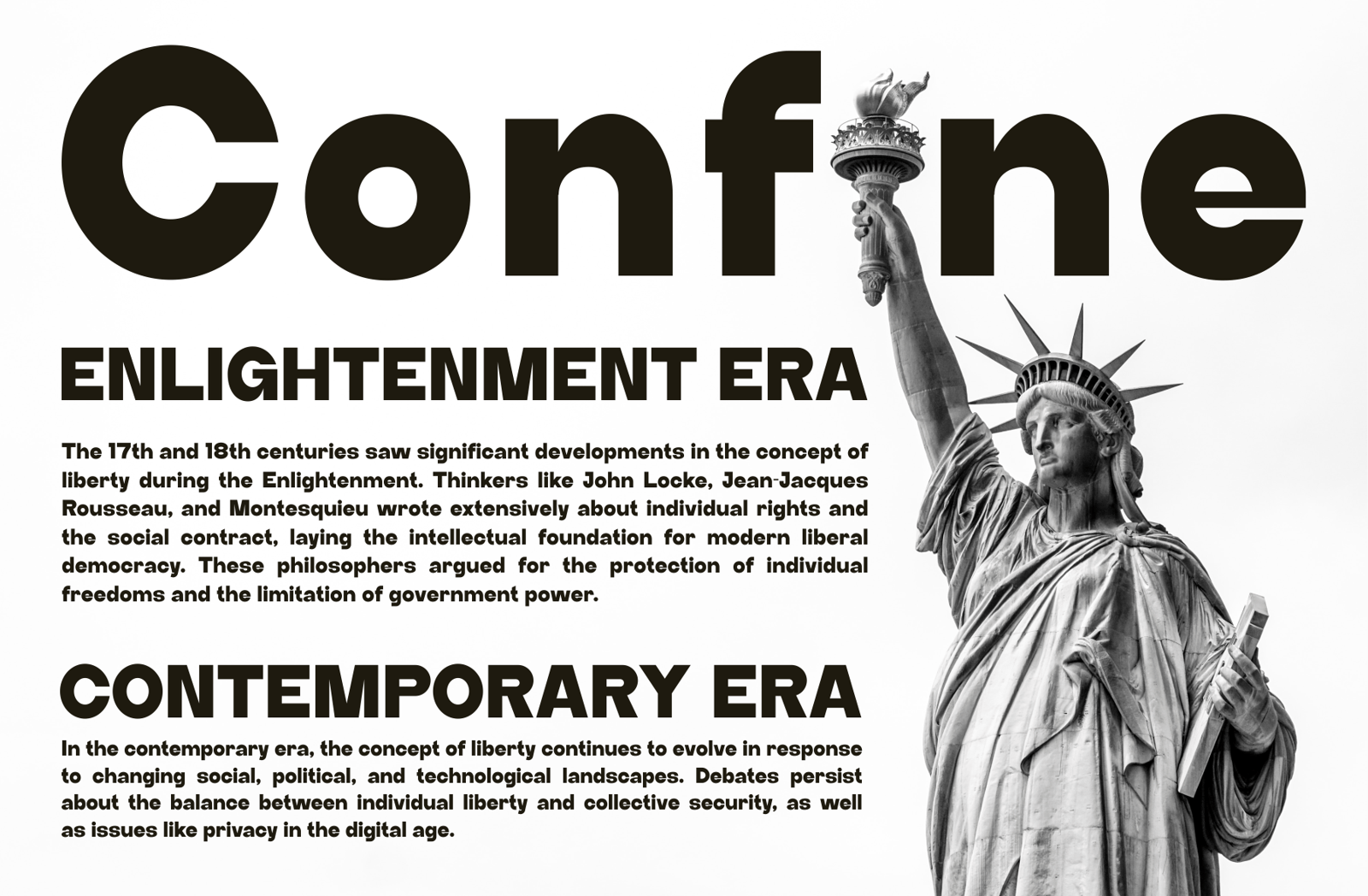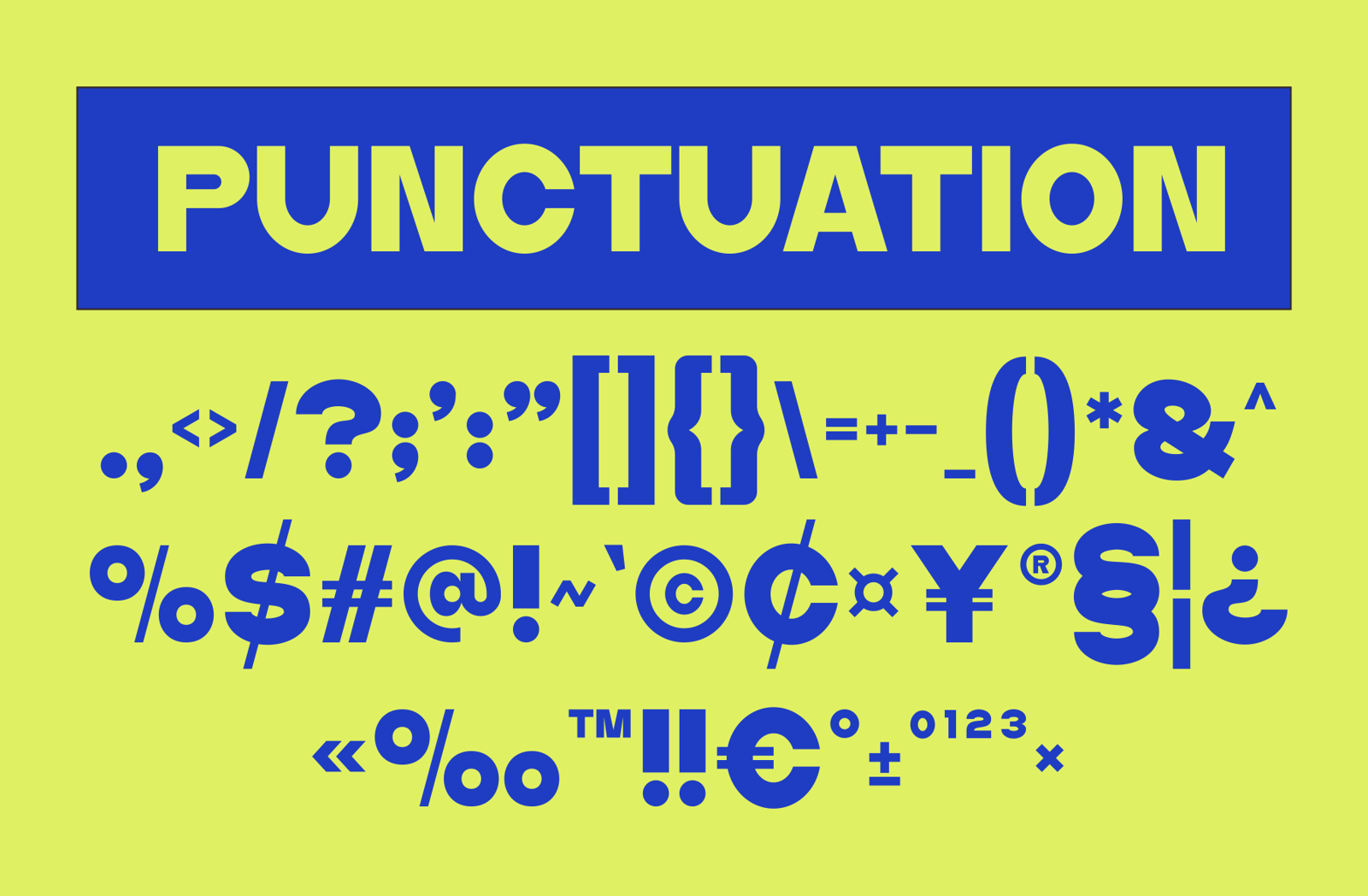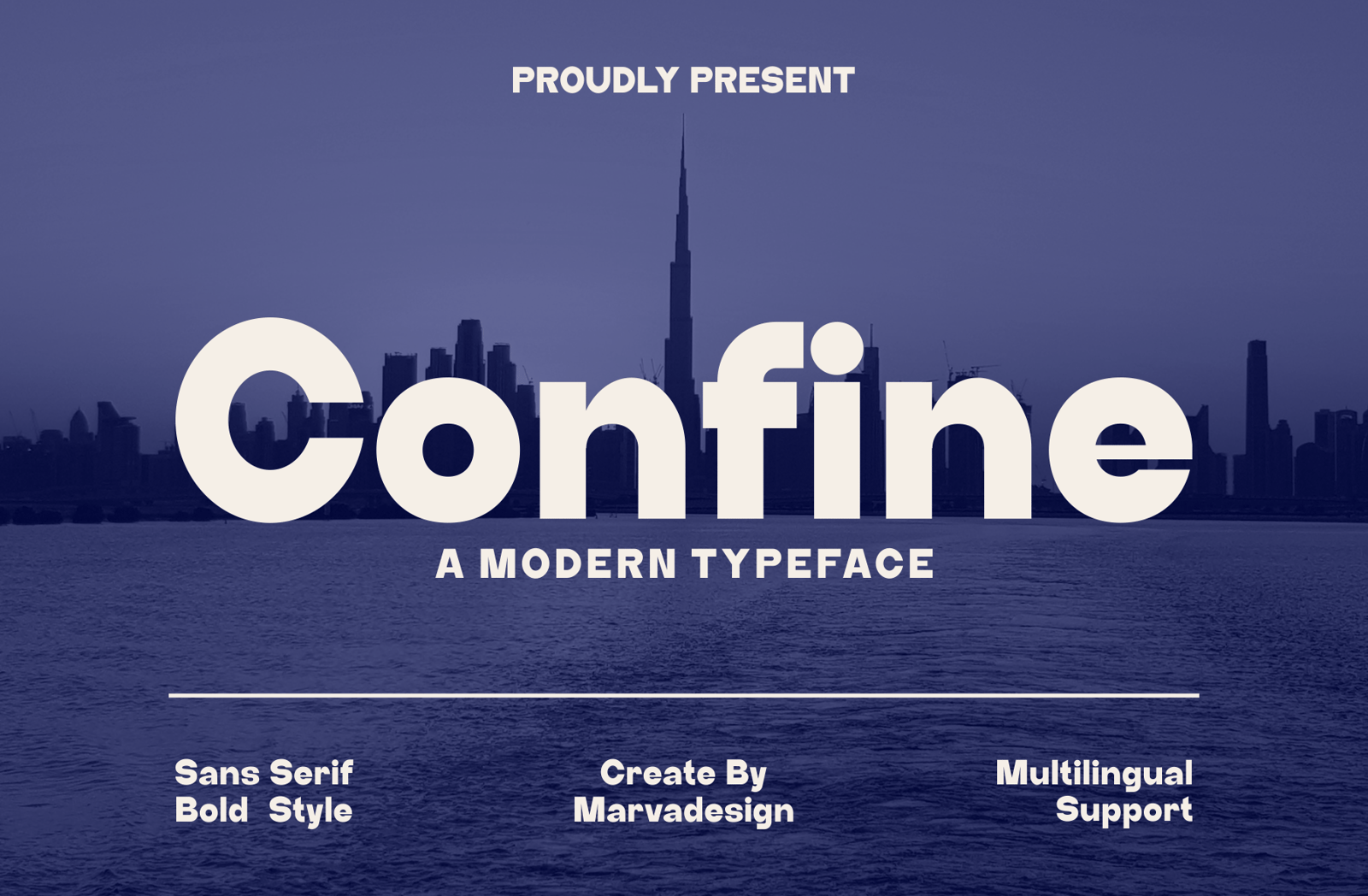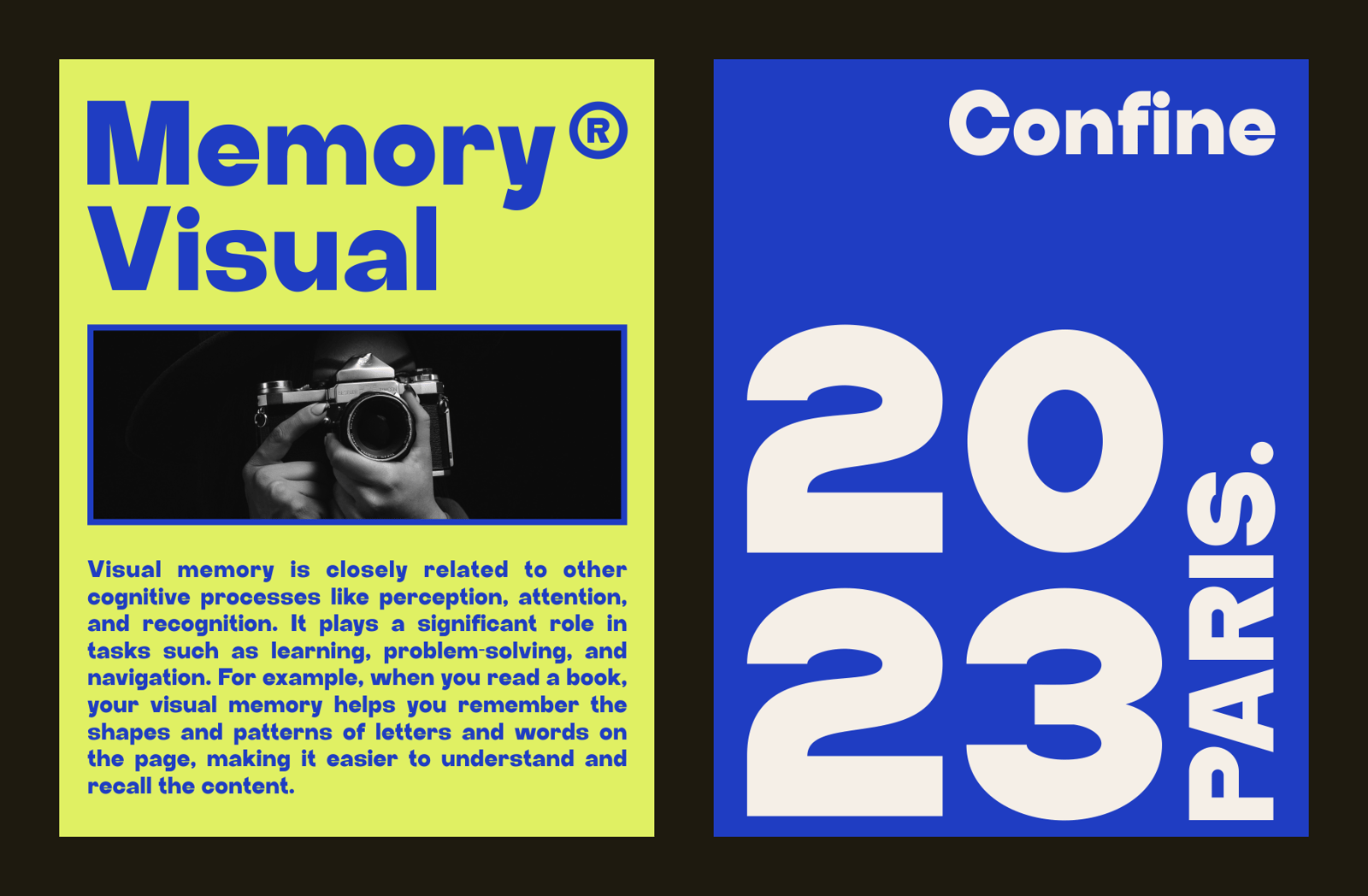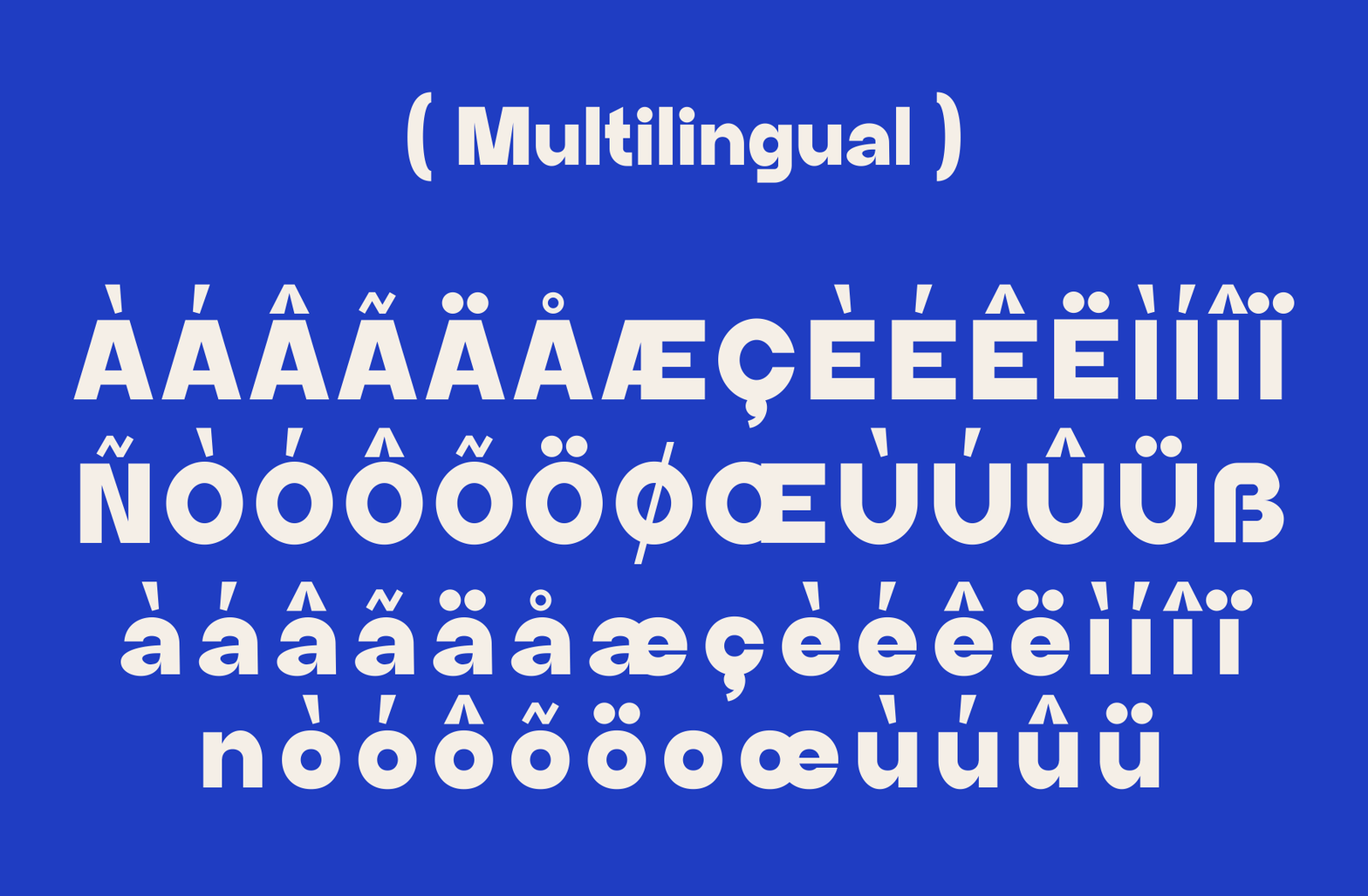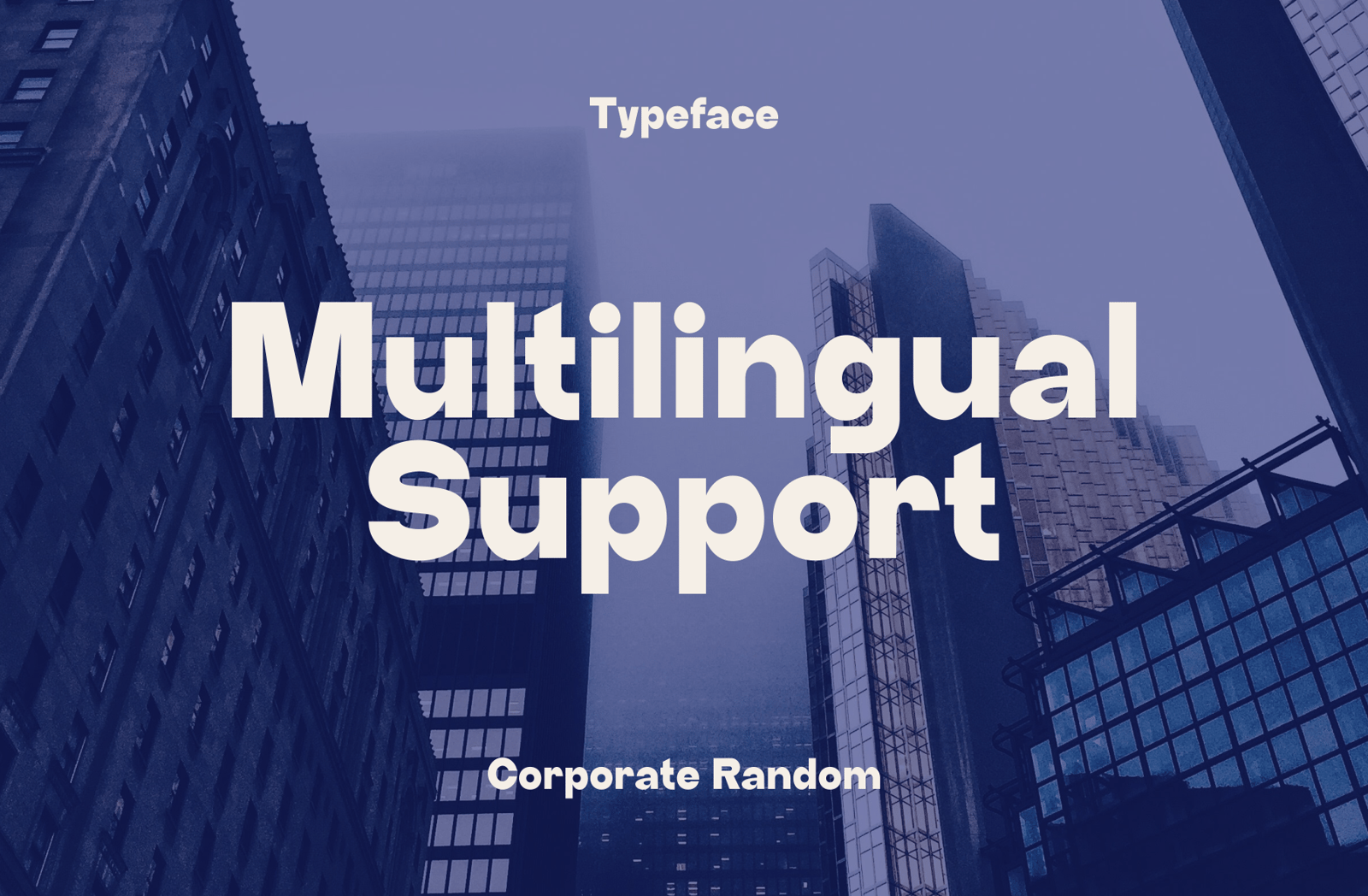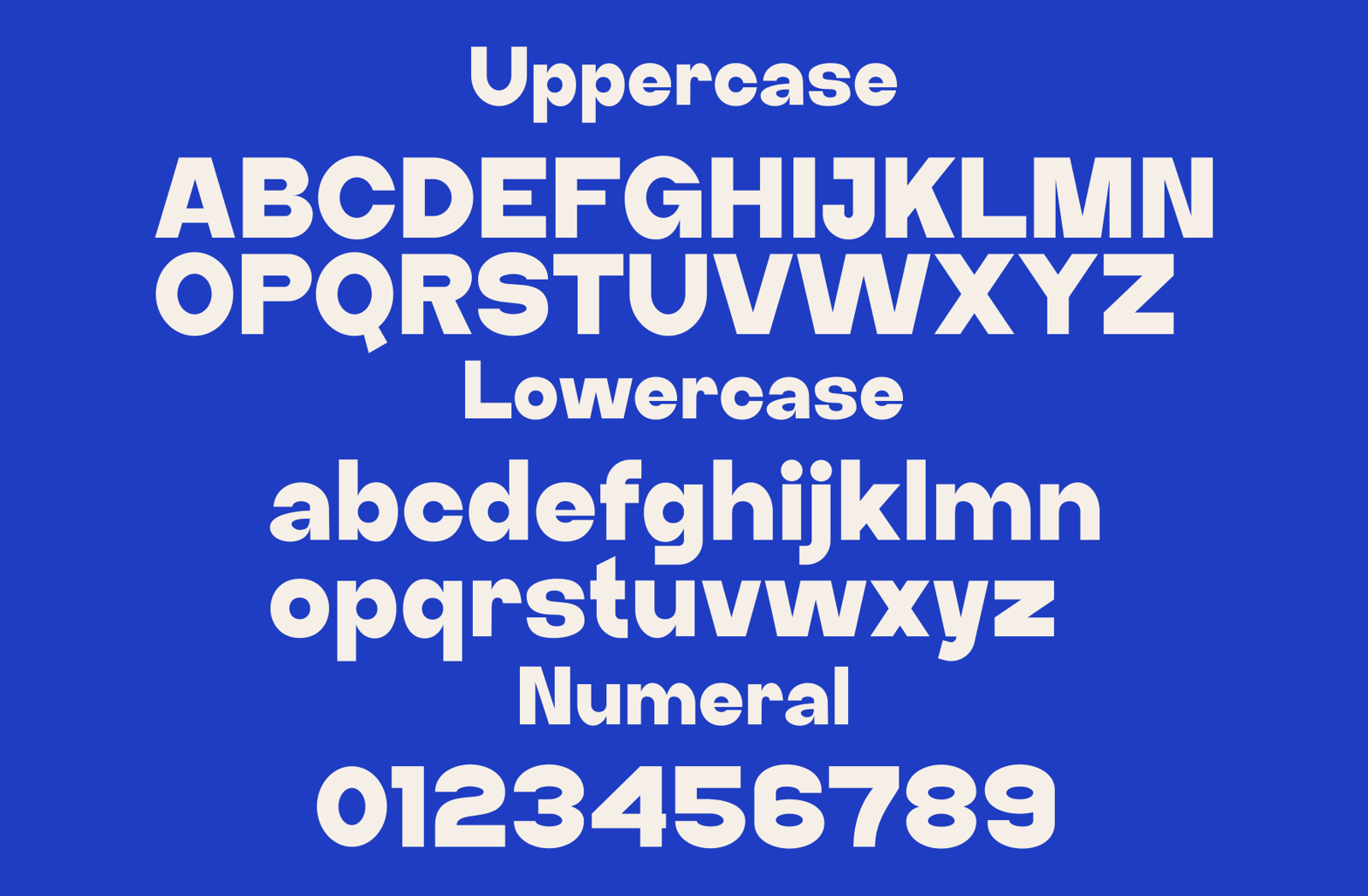
Cofine Font
Introducing Confine is a contemporary sans-serif typeface characterized by its bold, geometric structure and clean, modern aesthetic. Designed for high-impact visual communication, this typeface features thick, uniform stroke widths and slightly condensed proportions, ensuring both readability and a commanding presence in design applications.
With a strong emphasis on clarity and balance, Confine is well-suited for a variety of uses, including branding, editorial layouts, advertising, and digital media. Its versatility is further enhanced by support for both uppercase and lowercase letters, numerals, and multilingual characters, making it an adaptable choice for global design projects.
The typeface embodies a fusion of modernist and industrial design elements, resulting in a structured yet dynamic appearance. Whether utilized in bold headlines, promotional materials, or corporate identities, Confine conveys a sense of strength, professionalism, and contemporary sophistication.
* Uppercase
* Lowercase
* Multilingual
* Ligature